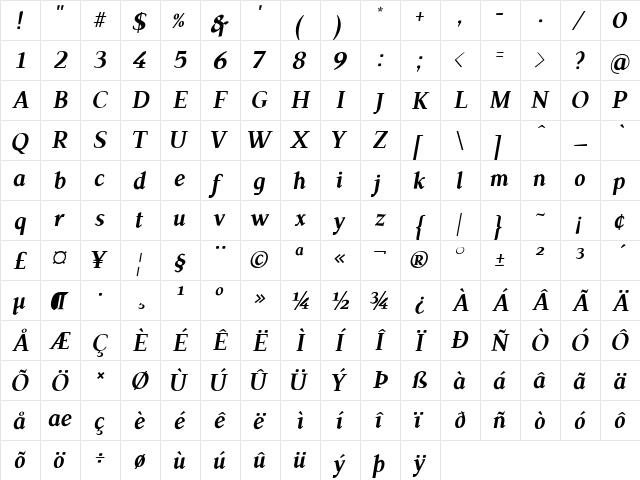
TS-Chapinero Serif Medium Italic
| Foundry | Type Sailor |
| Designer | David Espinosa - Type Sailor |
Design Context for TS-Chapinero Serif Typeface
TS-Chapinero Serif brings classic typographic sensibility to the table — its serifs and measured letterforms reflect centuries of print heritage. The dynamic lean of this cut emphasises speed and emphasis in any layout.